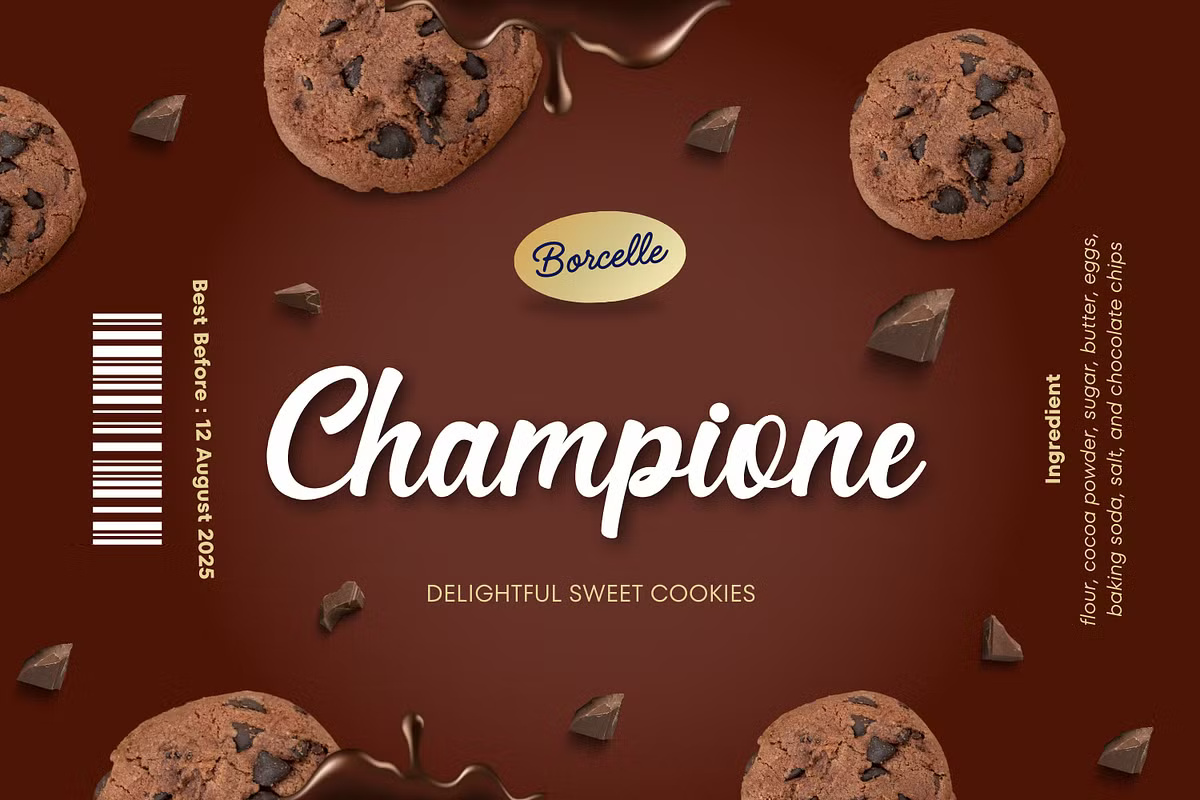
Basnistudio made Kintagina for logos, and it shows. The strokes are heavy, the letters join smoothly, and the capitals have big rounded entry strokes that give a word a strong start. In the “Champione” cookie packaging mockup it sits in white over chocolate brown and looks like a real supermarket brand.
Best uses for Kintagina
- Bakery and snack packaging
- Café and dessert shop logos
- Product labels and stickers
- T-shirt slogans
- Social media headers
Put a clean sans next to it. Poppins or Montserrat in small caps work for taglines like the one under “Champione”. For a more relaxed feel, Nunito Sans keeps the rounded mood.
Kintagina Logo Script Font